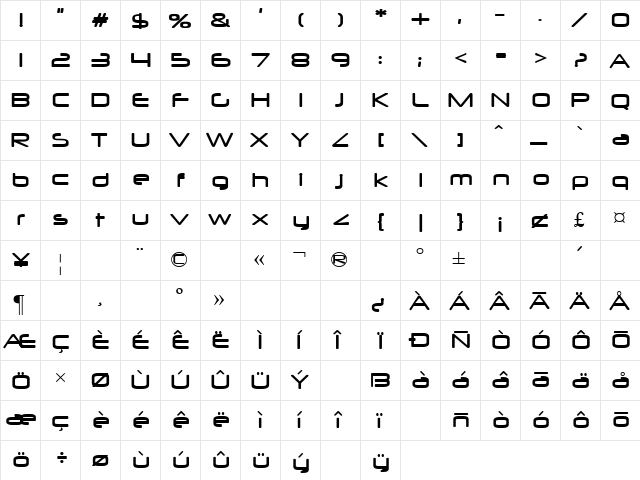
Neuropol Medium
Design Context for Neuropol Typeface
Neuropol offers clean, dependable letterforms without strong stylistic allegiance, making it a practical choice for designers who need flexibility.
Pro Tip: Use Neuropol in both headline and body roles to test its range before committing to a single application.